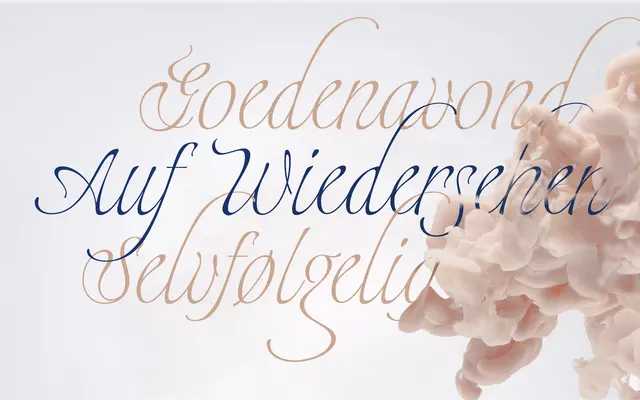
PGF-Elyss
An Art Nouveau-inflected display family spanning a Roman, Lombardic, Script, Catchwords and Ornaments set, inspired by Jean Larcher's calligraphic work.
Developed over eighteen months, the family grew from a single Roman into five distinct subfamilies united by an organic, Art Nouveau sensibility. The Roman runs in four weights from Light to Bold, the Script includes a Small variant, and both the Catchwords and Ornaments sets follow the same four-weight structure. Positioned at labels, headers and cover design, it covers over 200 Latin-based languages and includes an extensive OpenType feature set with swash, small capitals and stylistic alternates.
A multi-subfamily display project drawing on calligraphic, Lombardic and Nouveau traditions; the Roman, Script, Catchwords and Ornaments variants all serve decorative, heading-level use rather than extended text setting.